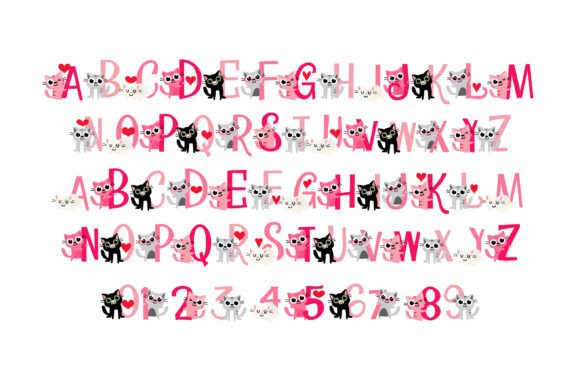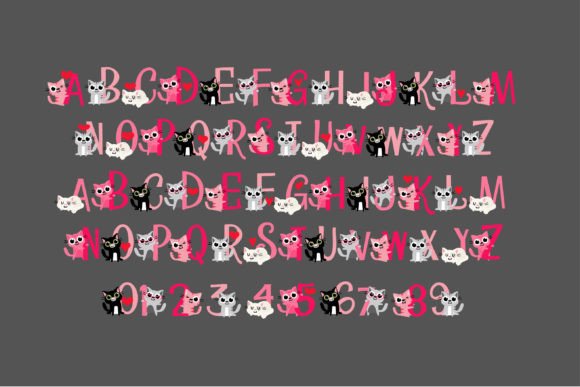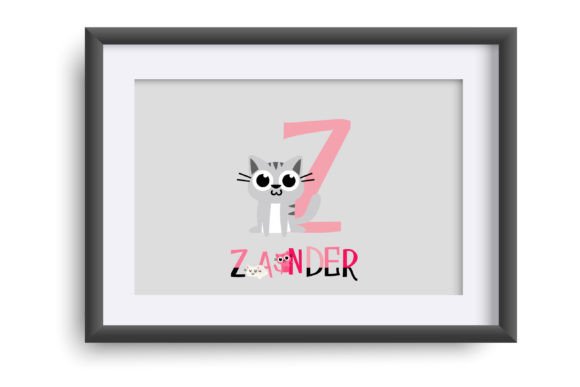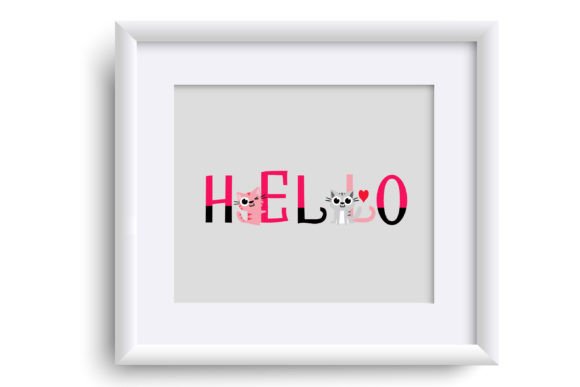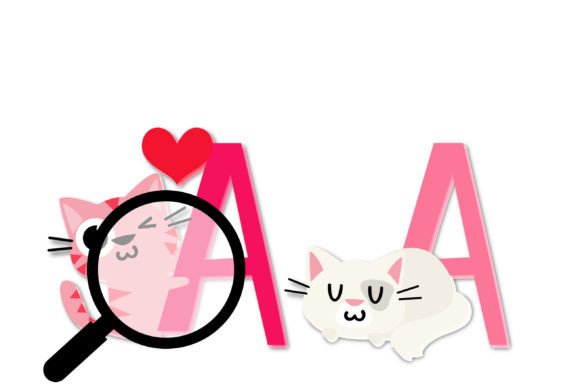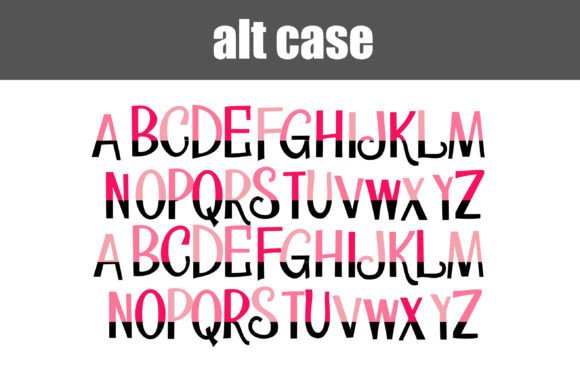
Introduction to Purr-fect Love Font Font
Fonts play a crucial role in design, and the Purr-fect Love Font font is a typeface that brings both character and versatility to any project. Whether you’re working on a branding project, a website, or a print design, the Purr-fect Love Font font offers a unique style that can elevate your work.
| 📌 Font Name | Purr-fect Love Font |
| 👤 Author | Illustration Ink |
Purr-fect Love is a colorful and lovely font that will brighten up any design.
This font boasts a harmonious blend of soft pastel hues, creating a calming and charming effect Ideal for invitations, greeting cards, and branding, this font is sure to add a touch of sweetness and elegance to your work.
Key Features of Purr-fect Love Font Font
Why Choose Purr-fect Love Font Font?
The Purr-fect Love Font font is more than just a typeface – it’s a design tool that helps you communicate your message with style and clarity. Its unique character set and versatile design make it suitable for a wide range of applications, from elegant invitations to bold headlines.
With its carefully crafted letterforms and balanced proportions, the Purr-fect Love Font font ensures readability and visual appeal across all mediums.
What makes Purr-fect Love Font font special?
The Purr-fect Love Font font stands out with its unique design, exceptional readability, and versatility across various design applications.